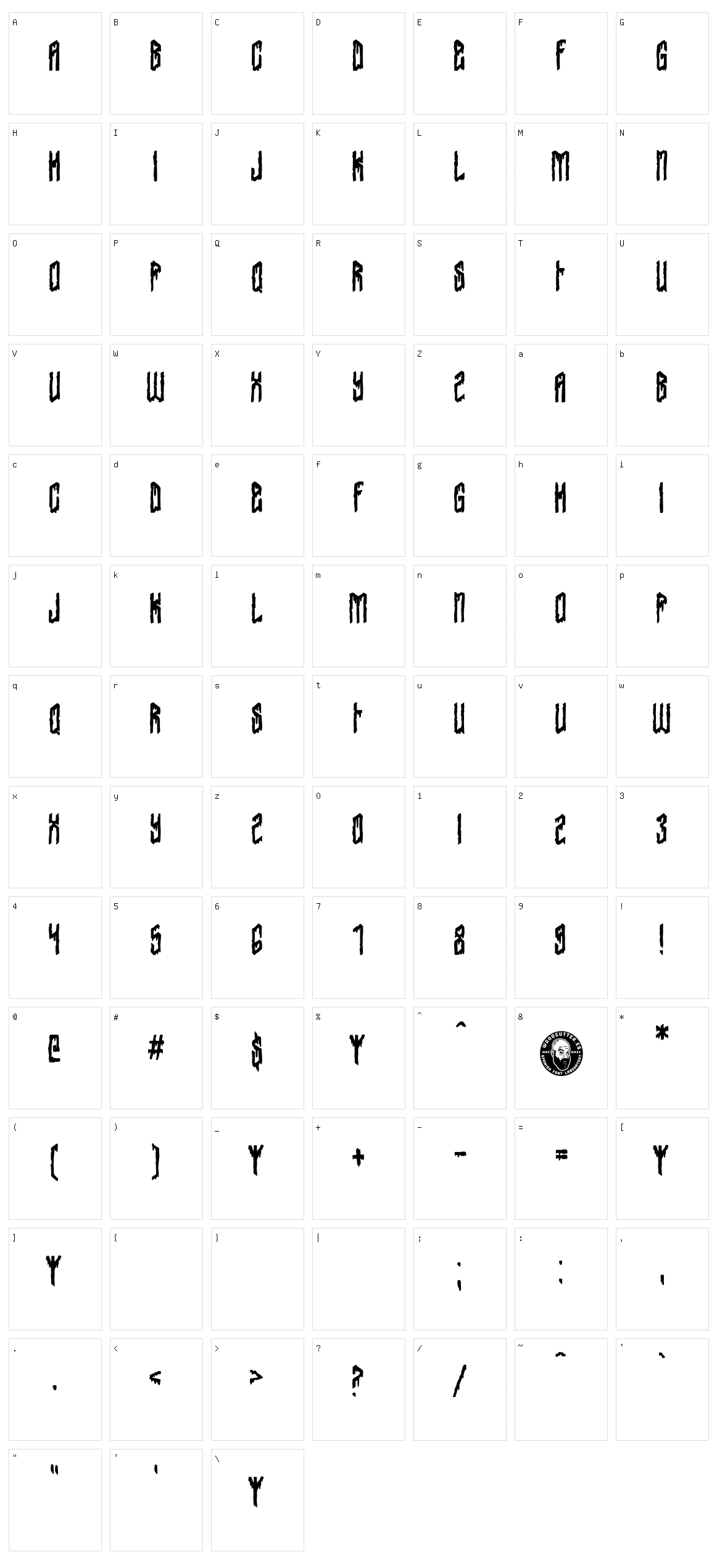
The free font Barbarians Hotel is carefully designed by Woodcutter, showcasing a thoughtful balance of creativity and usability and falls under the Horror font style. When you download the ZIP file, it contains only 47.63 KB of font files, making it lightweight and quick to download. Please review the license details below to understand permitted usage and distribution rights. If license information is not available, we recommend using this font for personal projects only or contacting the author directly for commercial usage permissions.